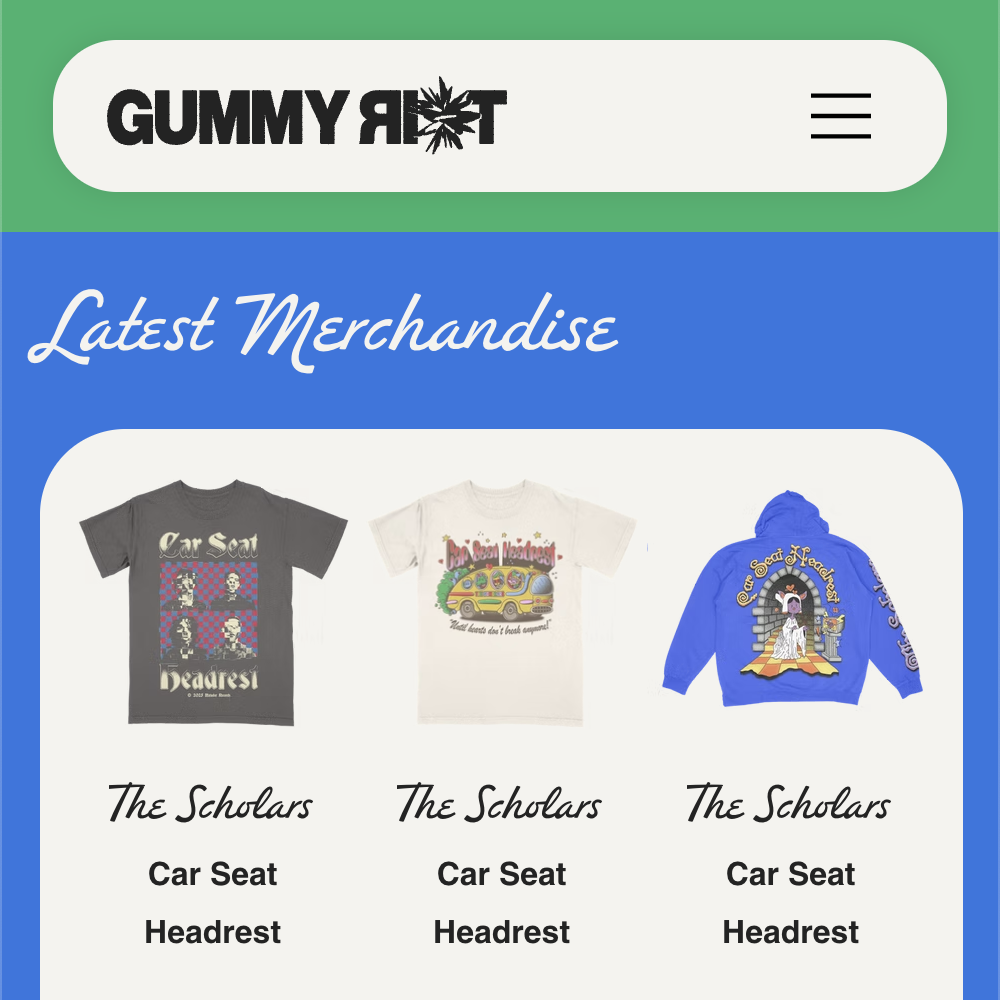
Redondo Ave Script Font
Redondo Ave script font is an organic, casual, yet sumptuously extra font that you can dress up or down.
Redondo Ave – Regular
Redondo Ave – Bold
Redondo Ave comes in 2 weights, with 560 glyphs supporting most Latin-based languages.
Contextual Alternates
Redondo Ave script font comes with tons of alternate characters for a truly organic feel.
Numbers, Symbols, and More
Perfect for logos, packaging, websites, and more
This display font adds instant personality to any design or layout. Like Jennifer Coolidge, it has an extravagance that’s simultaneously relatable and down to earth.
Features:
• Language Support: Western, Central, and most South Eastern European characters.
• Numerals, fractions, currency symbols, and punctuation.
• Fun extras like smiley faces, contextual alternates, arrows, stars and more
• 560 Glyphs